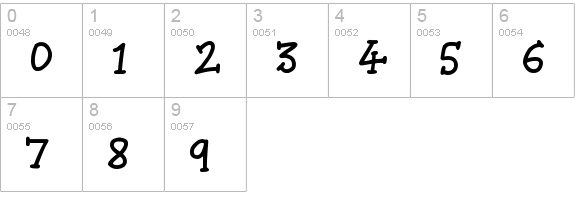
Malarky Font Details
Malarky is a free for personal use font in the Script > Handwritten category, designed by Darrell Flood. It has been downloaded 82 times and is available for Windows, Mac and Linux.
The Malarky font exudes a sense of whimsical charm with its playful yet elegant design. Featuring delicate curves and a unique vintage flair, this font is perfect for adding a touch of sophistication to any project. Its versatility allows it to be used for a wide range of design purposes, from invitations to branding to social media graphics.